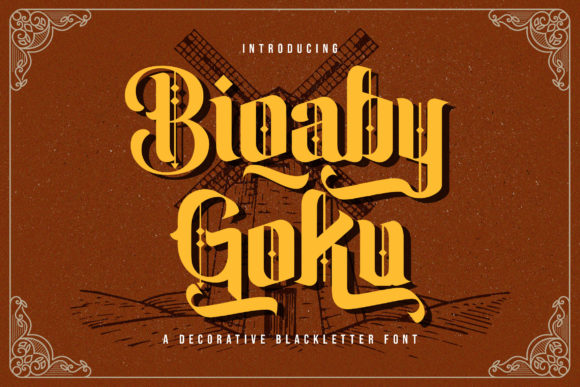
Indulge in the captivating allure of Biqaby Goku, a blackletter font that emanates boldness and distinction. Its assertive strokes command attention, while its elegant curves add a touch of sophistication.
Like a virtuoso's brushstrokes, Biqaby Goku transforms your designs into captivating masterpieces. Whether crafting eye-catching vinyl lettering, emblazoning sleek logos, or adorning captivating posters, this font empowers you to leave an indelible mark.
Embrace the power of Biqaby Goku and elevate your creations to new heights. Its versatility knows no bounds, seamlessly adapting to a myriad of design endeavors. Allow your imagination to soar as you unleash the boundless possibilities this remarkable font offers. Discover the transformative artistry of Biqaby Goku and ignite your creative spirit today!